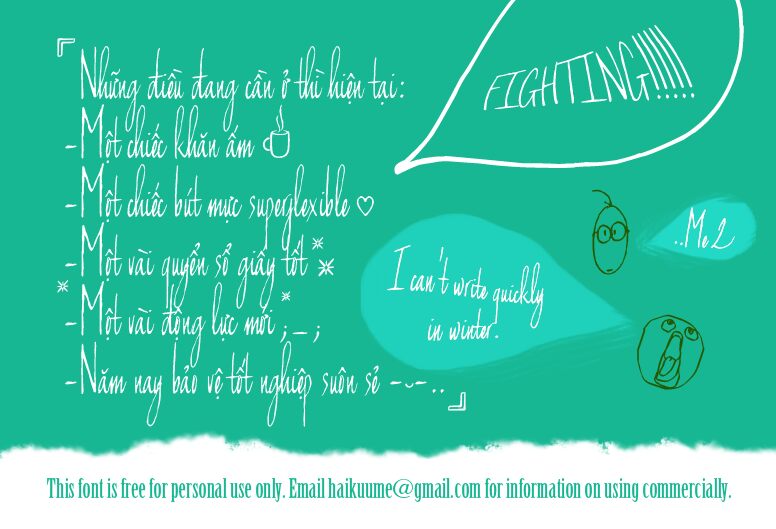
Can't write quickly in winter
Can't Write Quickly in Winter by Poemhaiku is a free handwritten font with towering narrow letters and a sharply uneven line. Stroke widths shift from hairline marks to broad inked sections. The loose joins and exaggerated height make the writing look hurried and personal.
Its scratchy pen texture can echo rough portrait sketches or fashion illustration on magazine covers, music merchandise, event graphics, and independent album artwork. Poster art is its strongest setting, turning the lettering into part of an expressive ink drawing.